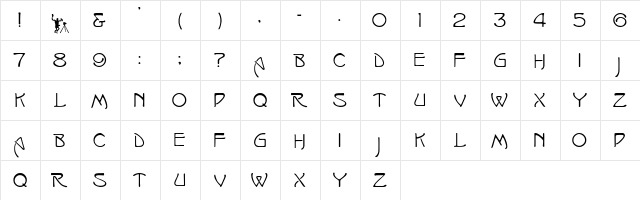
Fellenni Caps Regular
Design Context for Fellenni Caps Typeface
Fellenni Caps offers clean, dependable letterforms without strong stylistic allegiance, making it a practical choice for designers who need flexibility.